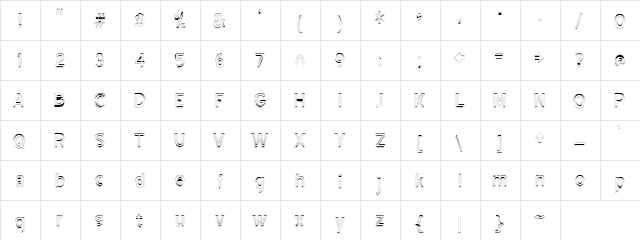
3D Punch Regular
Design Context for 3D Punch Typeface
3D Punch offers clean, dependable letterforms without strong stylistic allegiance, making it a practical choice for designers who need flexibility.